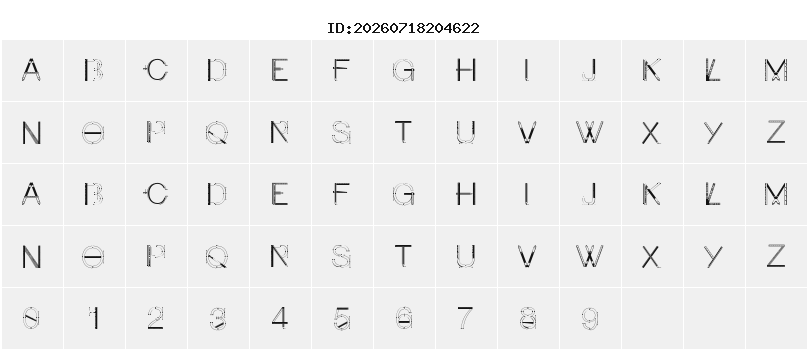
Craft Font.ttf is a modern, elegant sans-serif font designed for ultimate readability and visual harmony. Perfect for branding, headlines, web design, and print materials.